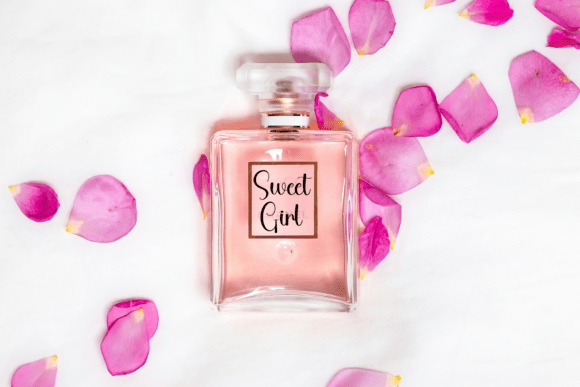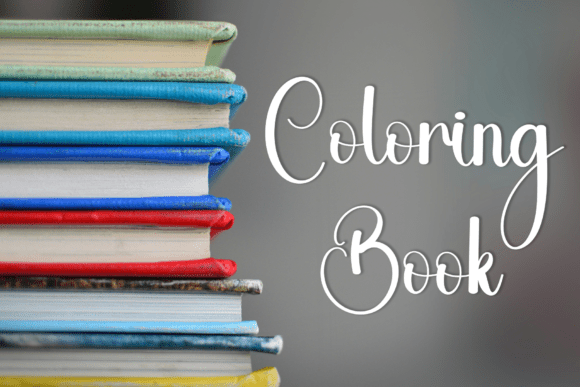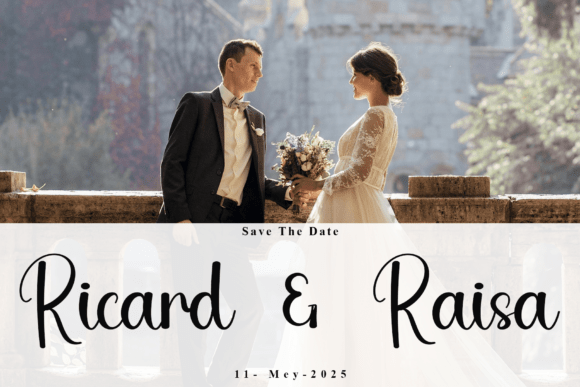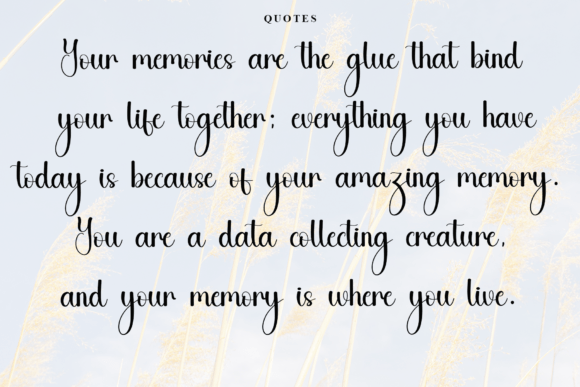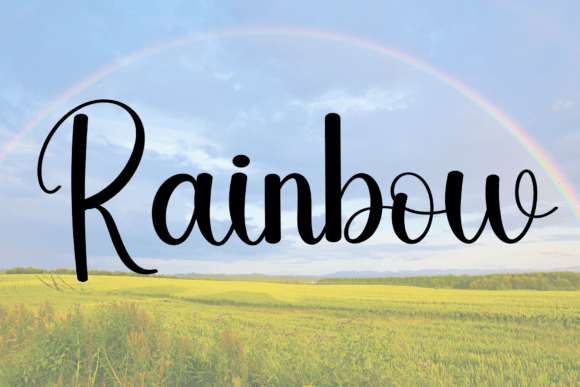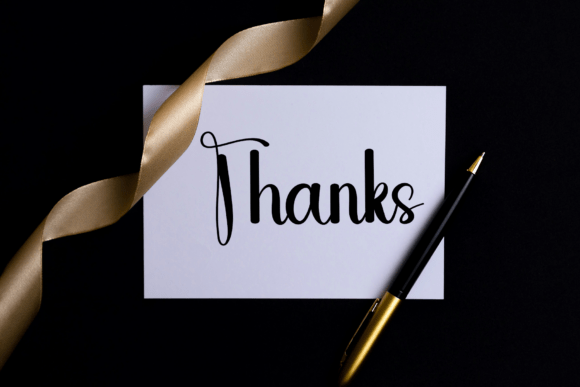
Elegant Font: Elevate Your Designs with Sophistication and Charm
In the world of typography, few fonts capture the essence of refinement and poise as effortlessly as Elegant. This stylish handwritten script font is a masterclass in elegance, boasting flowing, graceful curves that instantly elevate any design. Whether you’re a seasoned designer or a crafty DIY enthusiast, Elegant is the perfect choice for adding a personal and sophisticated touch to your projects.
The Characteristics of Elegant Font
Elegant is more than just a font – it’s an experience. Its delicate strokes and carefully crafted letterforms exude warmth and creativity, making it an ideal choice for a wide range of applications. From formal invitations and logos to branding and packaging, Elegant brings a level of sophistication and charm that’s hard to match.
One of the standout features of Elegant is its versatility. This font is designed to be adaptable, working beautifully in a variety of contexts and design schemes. Whether you’re aiming for a classic, vintage look or a more modern, minimalist aesthetic, Elegant can help you achieve your vision.
Uses for Elegant Font
So, what can you use Elegant for? The possibilities are endless, but here are a few ideas to get you started:
- Invitations: Whether you’re planning a wedding, baby shower, or formal gala, Elegant is the perfect choice for creating beautiful, eye-catching invitations.
- Logos and Branding: Establish your brand as a sophisticated and elegant player in your industry with a custom logo or branding package featuring Elegant.
- Packaging: Add a touch of luxury to your product packaging with Elegant, perfect for high-end cosmetics, jewelry, or gourmet food items.
- Stationery: Create beautiful, professional-looking stationery with Elegant, including letterheads, business cards, and more.
Why Choose Elegant Font?
With so many fonts to choose from, why should you opt for Elegant? Here are just a few compelling reasons:
- Unique and Memorable: Elegant is a one-of-a-kind font that will help your designs stand out from the crowd.
- Elegant and Sophisticated: This font exudes refinement and poise, making it perfect for high-end designs and luxury brands.
- Easy to Read: Despite its elegant appearance, Elegant is surprisingly easy to read, even in smaller sizes.
- Highly Versatile: This font can be used in a wide range of contexts and design schemes, from formal to informal.
Tips for Using Elegant Font
To get the most out of Elegant, here are a few tips to keep in mind:
- Pair with Simple Backgrounds: Elegant looks best against simple, understated backgrounds that allow the font to take center stage.
- Experiment with Colors: Don’t be afraid to try out different colors and textures to add depth and interest to your designs.
- Use Sparingly: While Elegant is a beautiful font, it can be overwhelming if overused. Use it sparingly to create maximum impact.
In conclusion, Elegant is a truly exceptional font that can elevate any design to new heights of sophistication and charm. With its flowing curves, delicate strokes, and versatile design, it’s the perfect choice for designers and crafters looking to add a touch of elegance to their projects. Whether you’re creating formal invitations, logos, or packaging, Elegant is sure to impress.